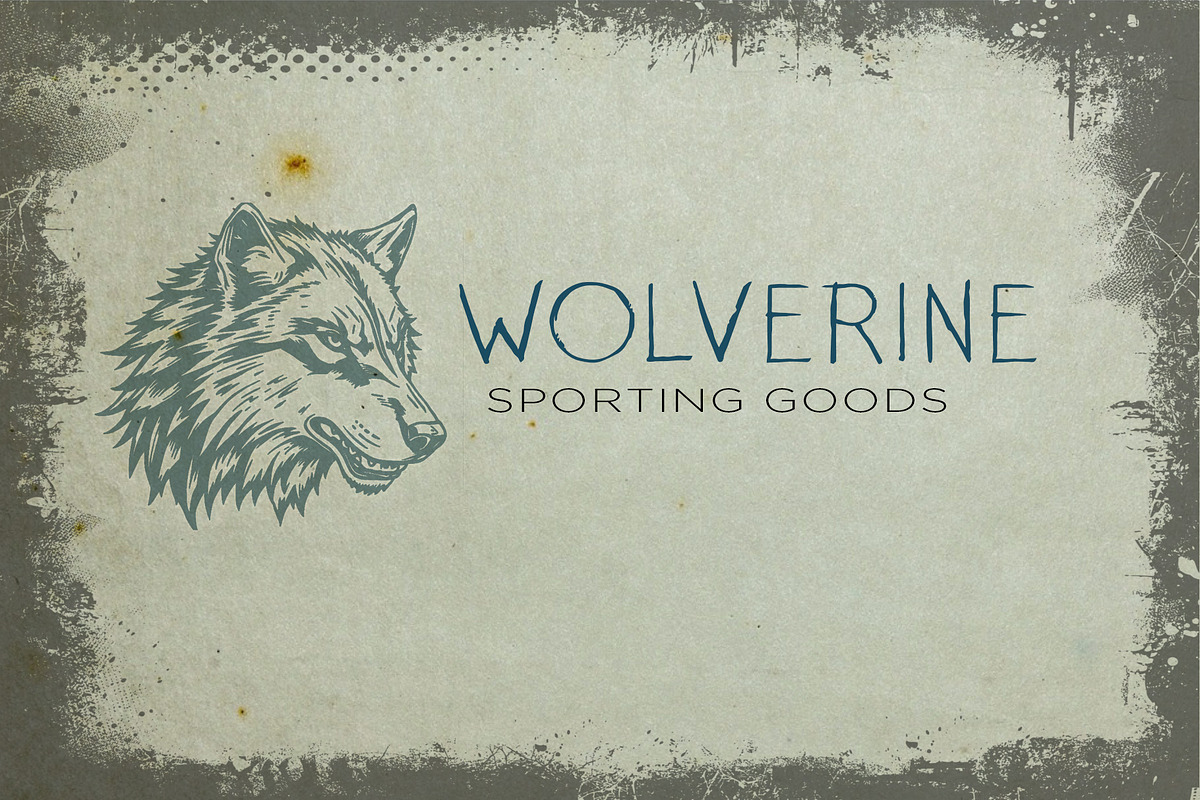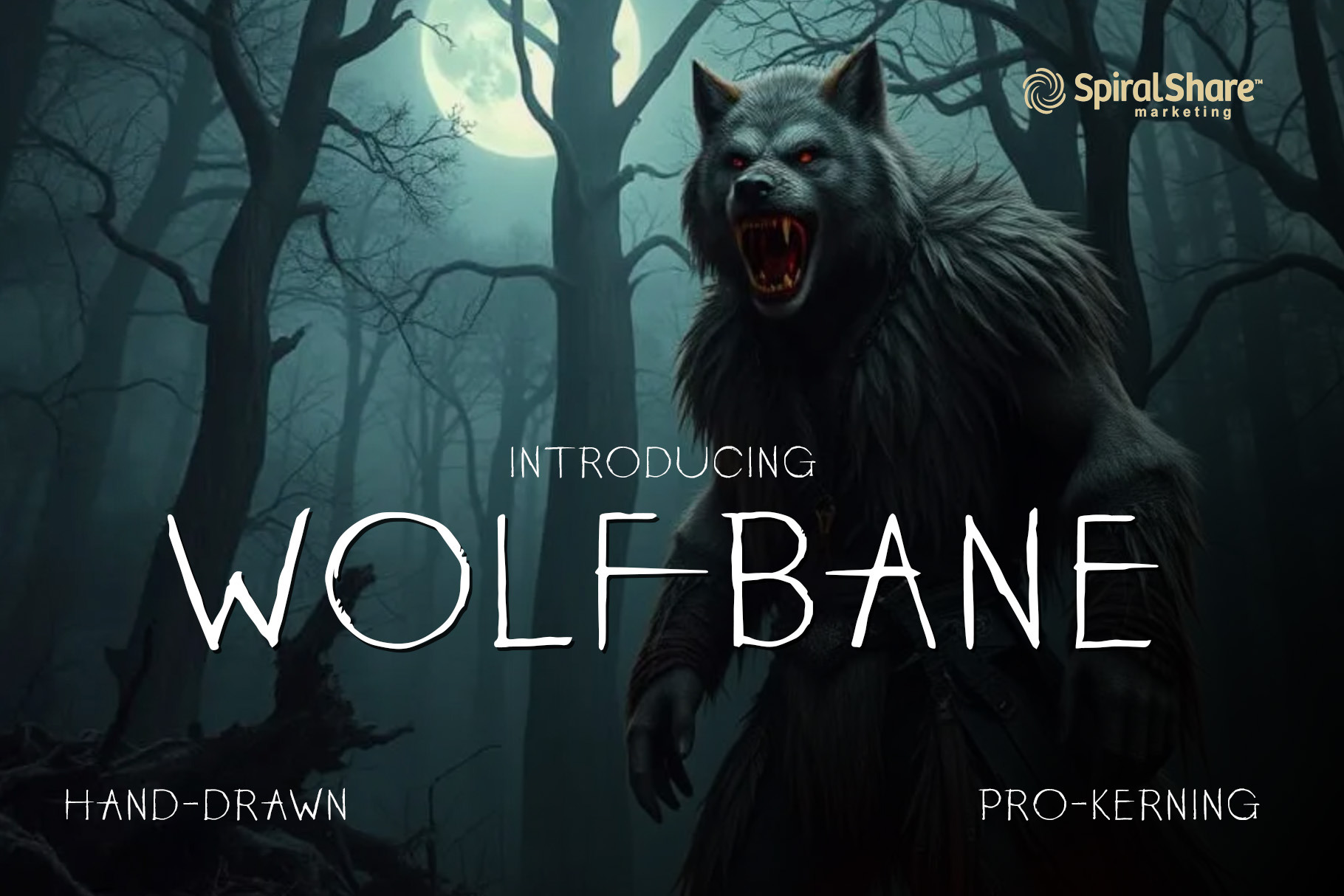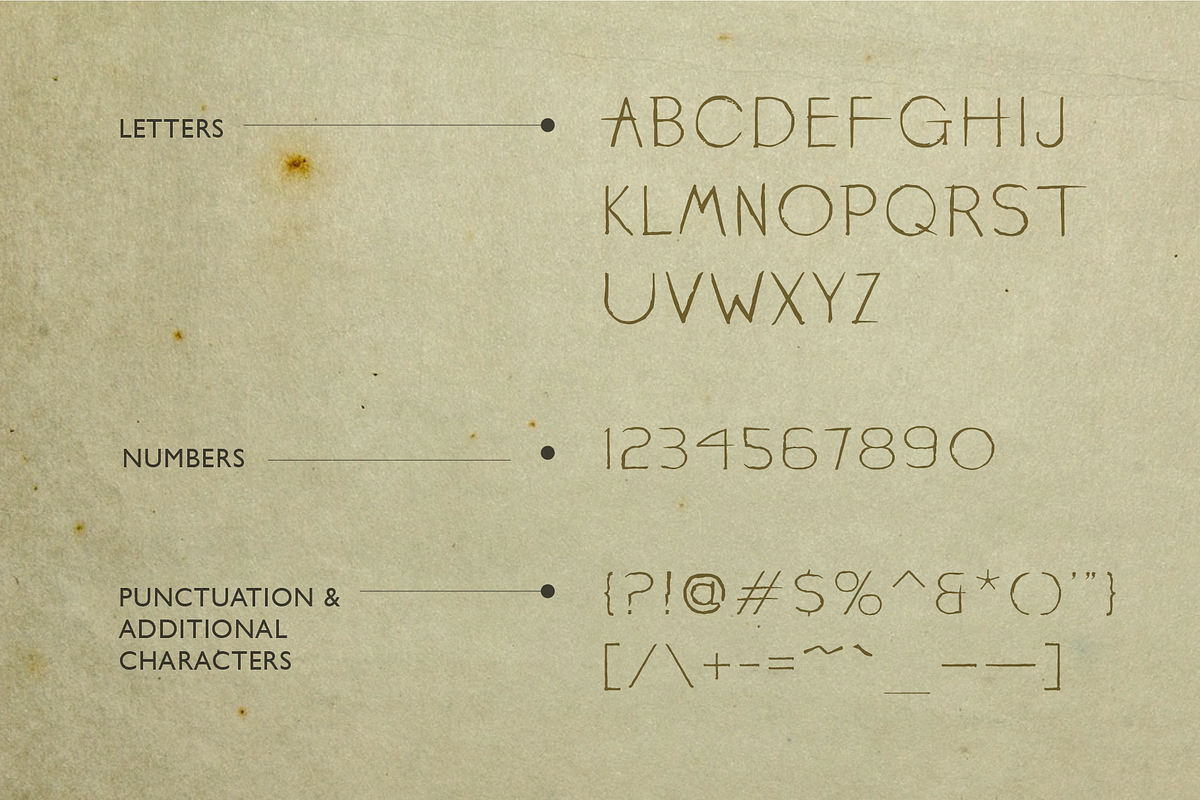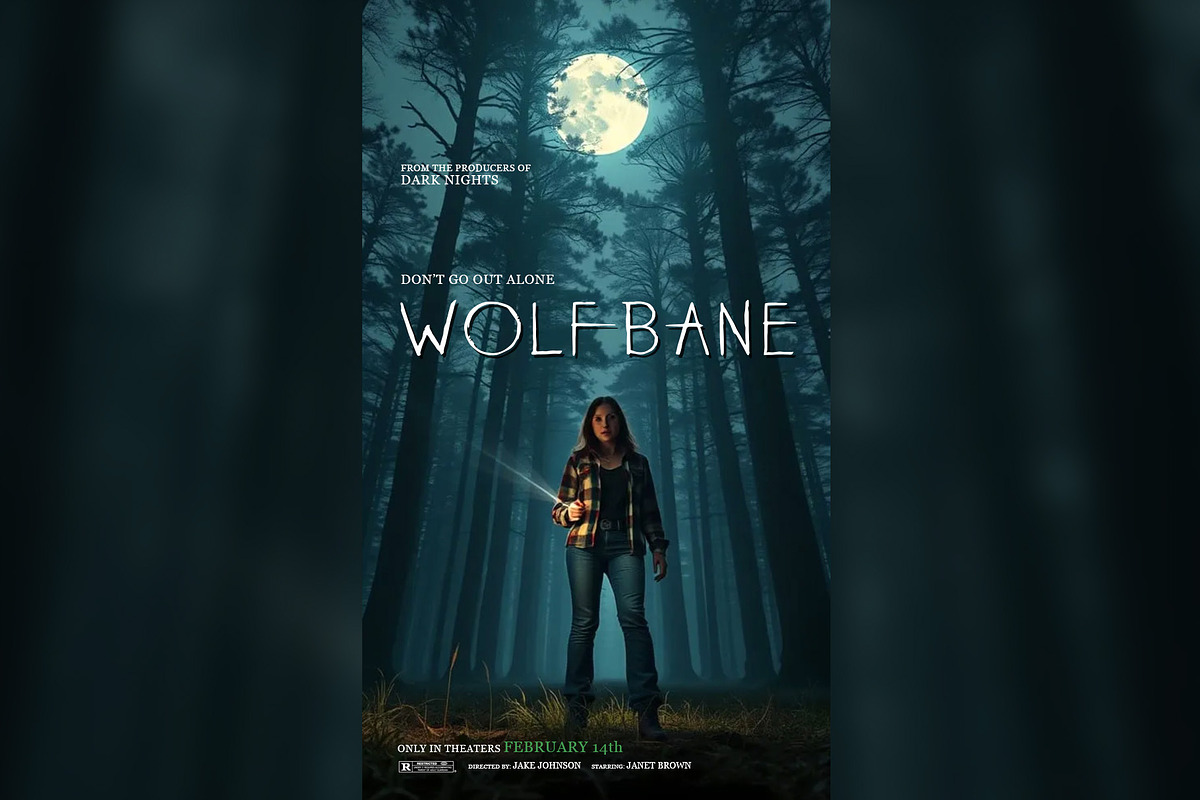
Wolfbane - Wolfman-Style Movie Font
WOLFBANE is a fierce and atmospheric typeface inspired by the 2025 iconic Wolfman movie poster. With sharp, claw-like edges and a hauntingly vintage aesthetic, it captures the essence of old-school horror and supernatural thrillers. Perfect for titles, posters, and branding, Wolfbane adds a touch of eerie sophistication to any design. Ideal for Halloween themes, horror films, and dark fantasy projects, this font delivers a chilling, cinematic presence that’s both nostalgic and captivating. Let Wolfbane transform your designs into a howl-worthy masterpiece.